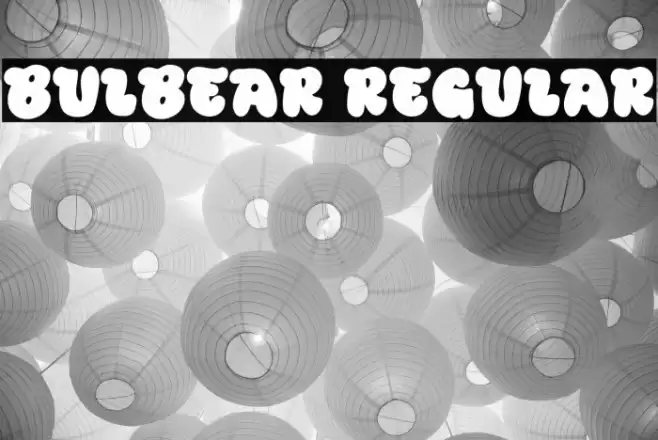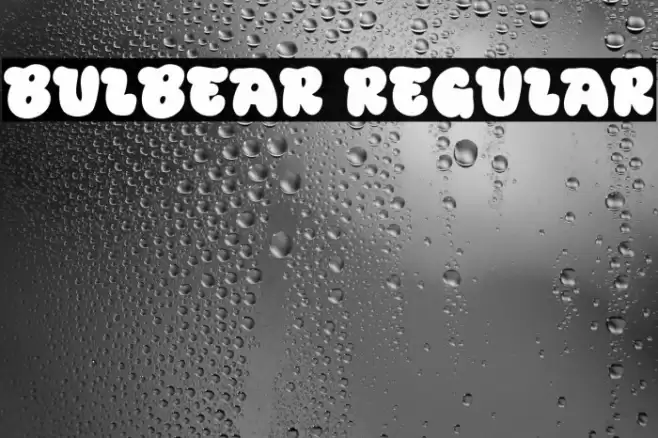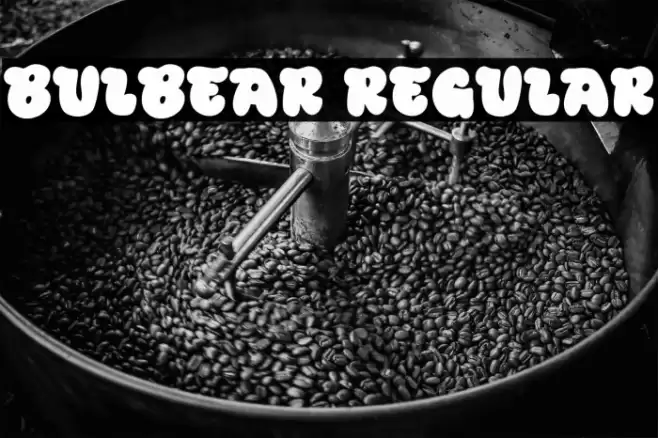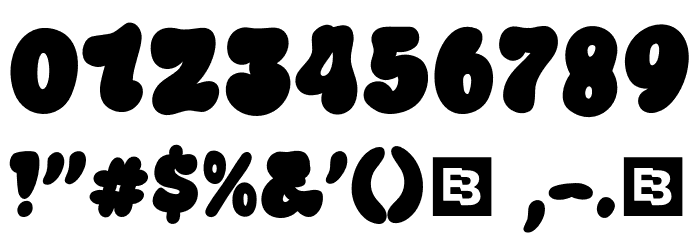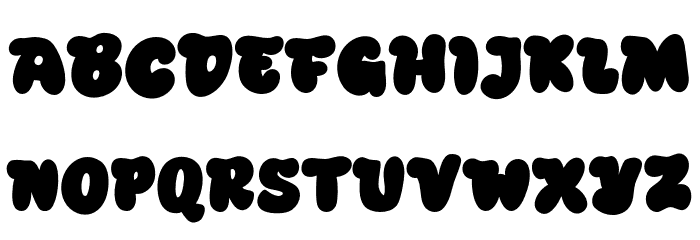
Bulbear Regular Font
Bulbear Regular Description
A bold, playful font with rounded, bubbly characters, suitable for eye-catching designs.
Bold, playful font with rounded characters from Uncategorized fonts.
- Proposed Projects: Children's books, playful branding, posters.
- Overall Style: Playful, Fun